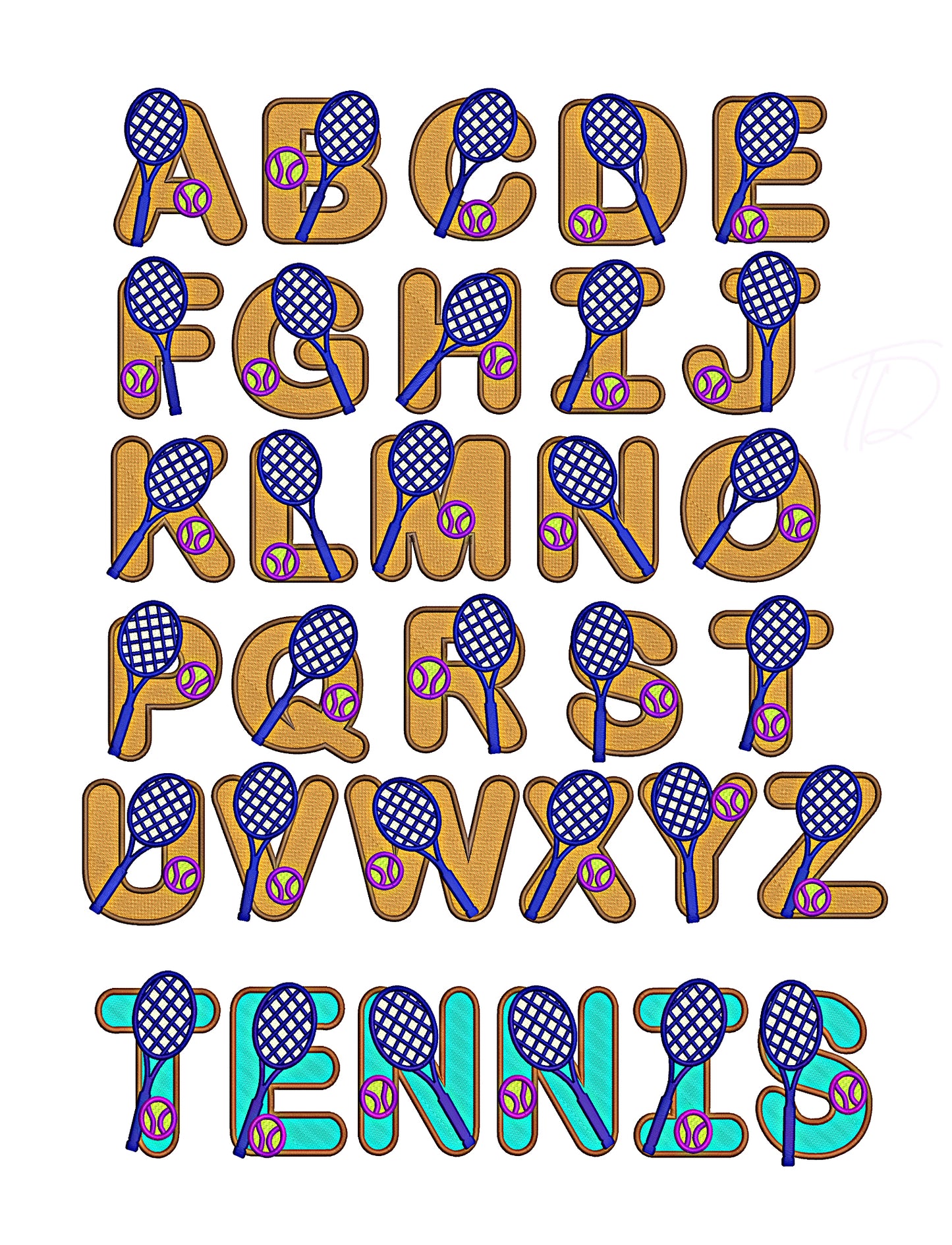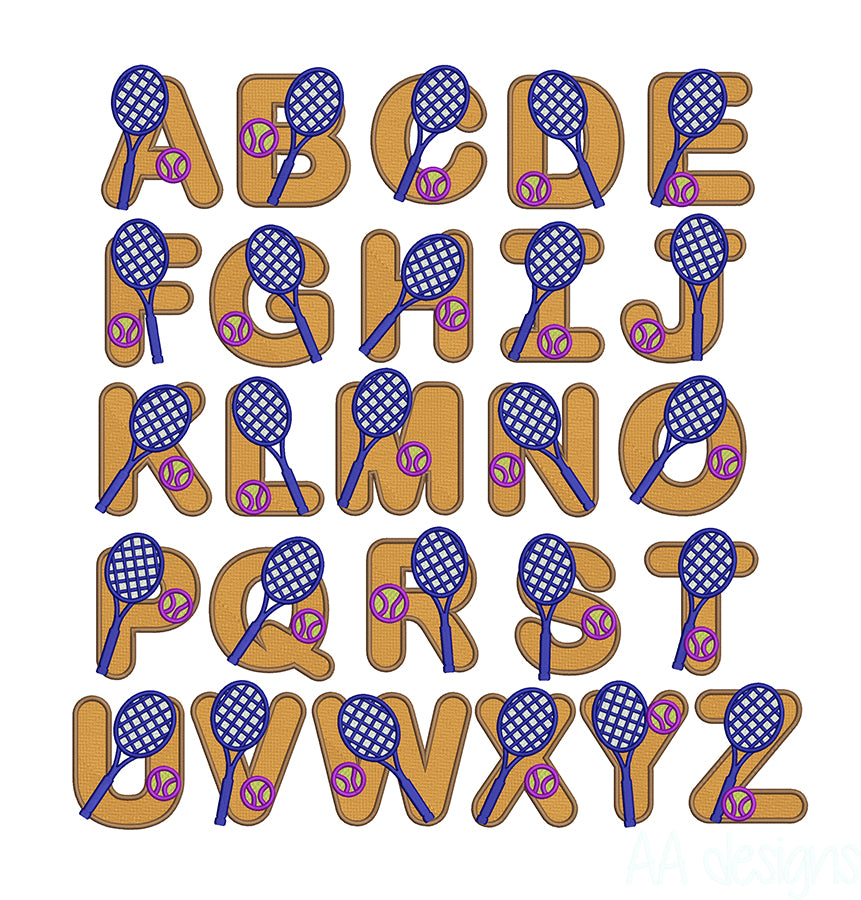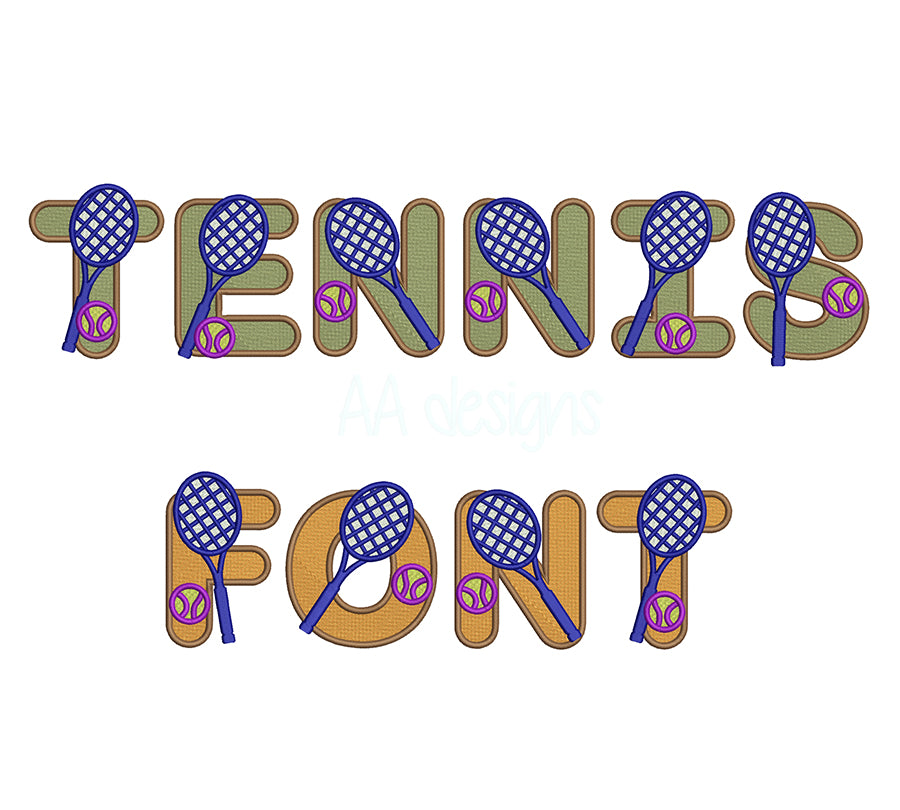
Tennis Embroidery Digital Font
Serve up stunning stitch work with our Tennis Embroidery Digital Font — an elegant yet sporty alphabet designed for machine embroidery enthusiasts, club apparel makers, and sports gift creators.
- Sleek, athletic letterforms inspired by classic tennis club and tournament typography
- Perfect for player names, club logos, polo shirts, visors, bags, towels, and wristbands
- Optimized stitch paths for crisp, clean results on piqué, terry cloth, canvas, and more
Whether you're personalizing gear for a tennis club, creating a thoughtful gift for a player, or building a custom sports apparel line, this font delivers match-point quality every time.